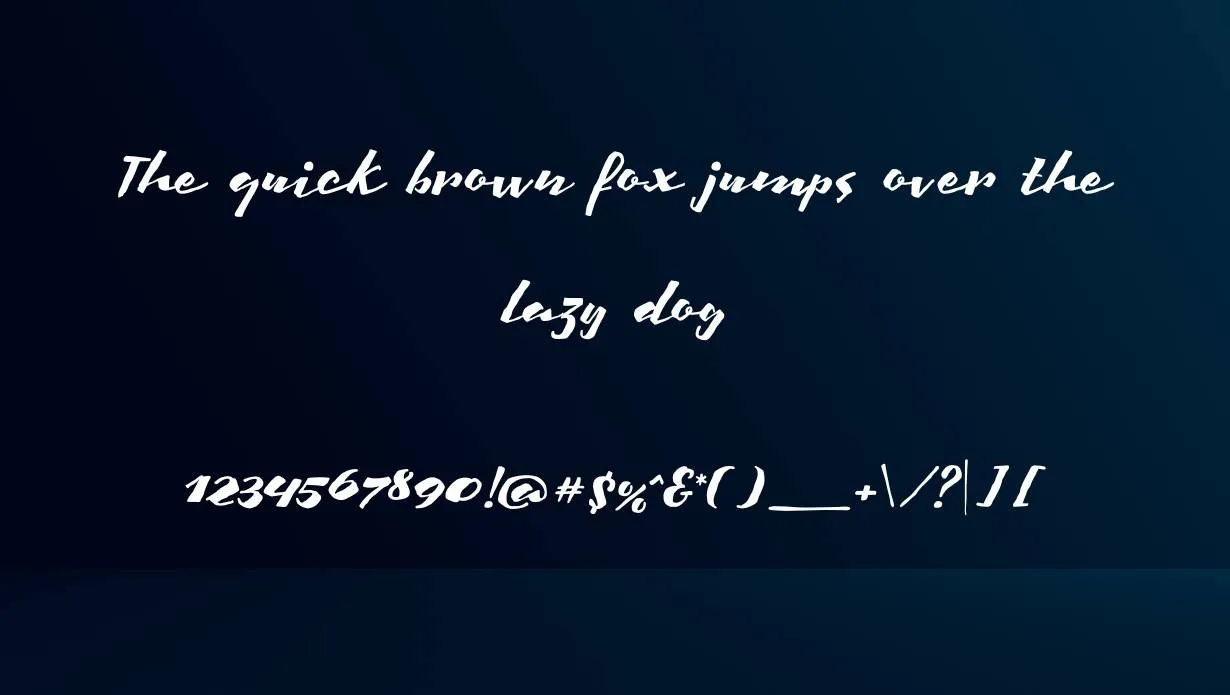
Harlott Font commands attention with its bold and dramatic style, suitable for fashion magazines, eye-catching posters, and impactful headlines.
Its striking and forceful appearance gives any text a sense of authority and grabs the viewer’s attention instantly.
| Name | Harlott Font |
| Designer | Artimasa |